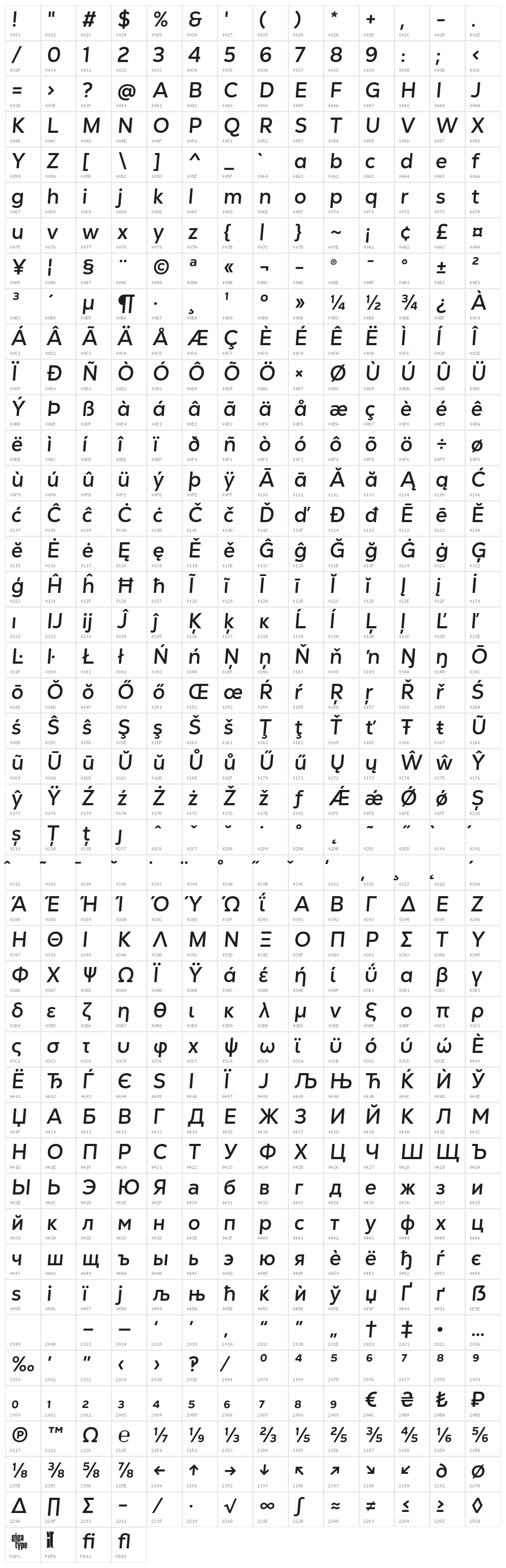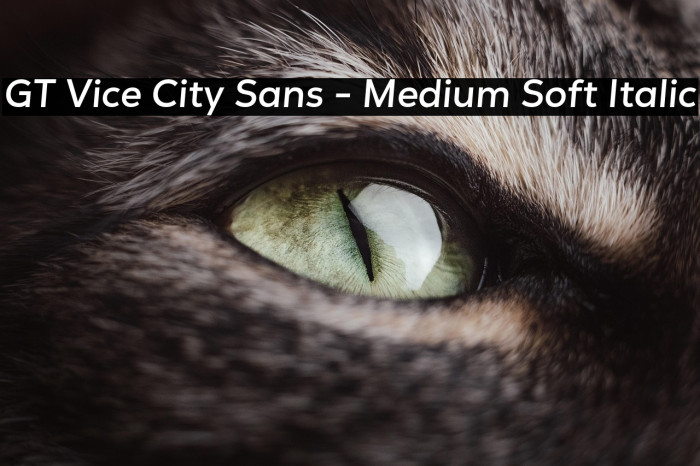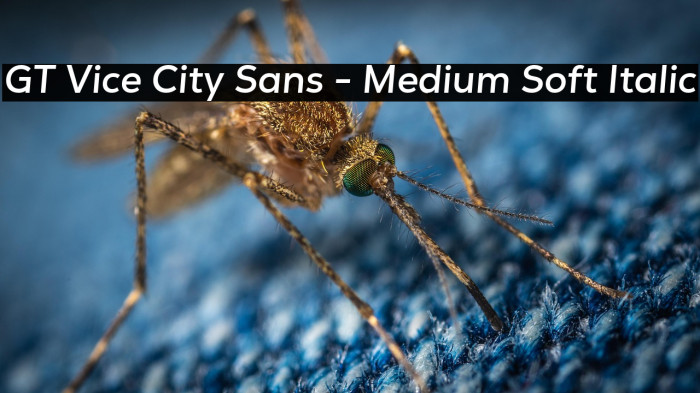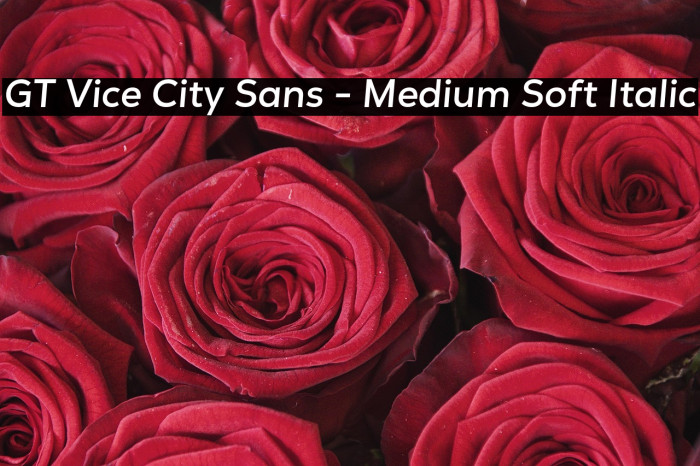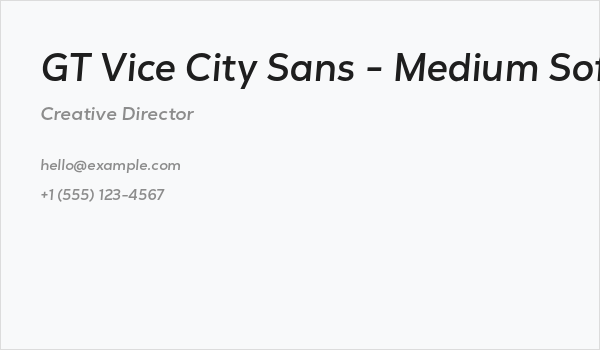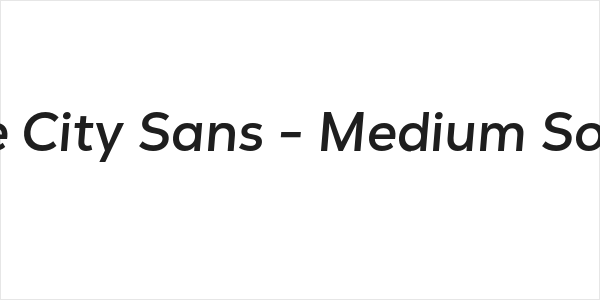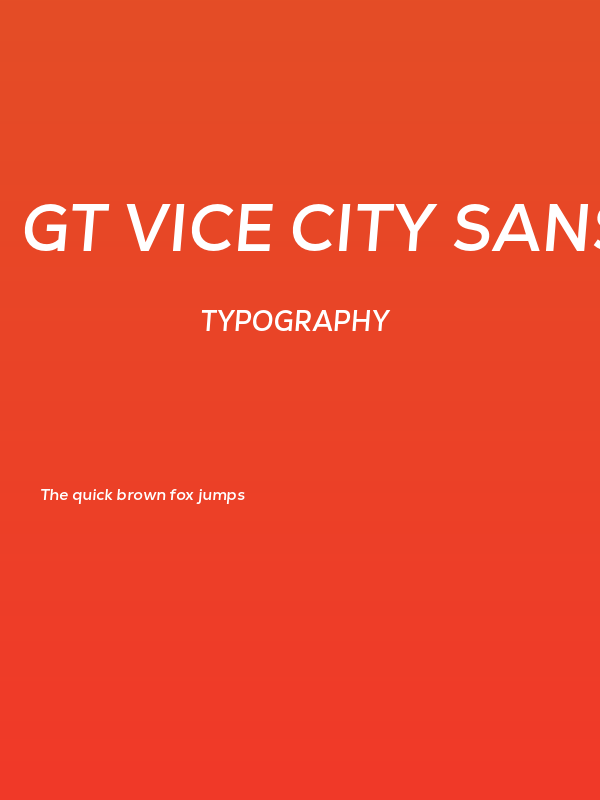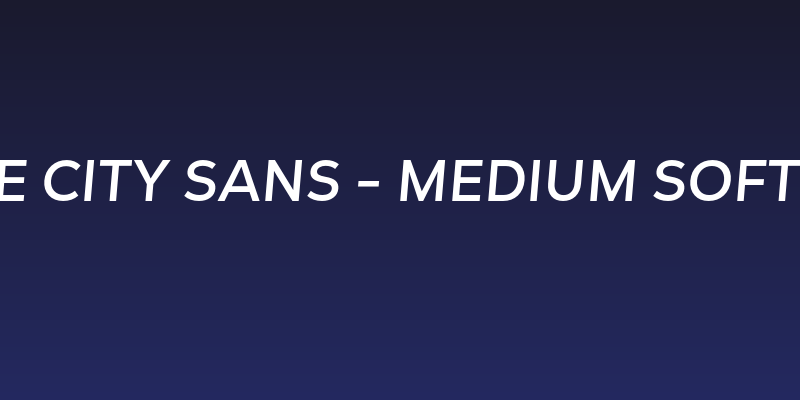
GT Vice City Sans - Medium Soft Italic Font
GT Vice City Sans - Medium Soft Italic Description
A modern sans-serif font with a soft, italic style, featuring clean lines and a medium weight.